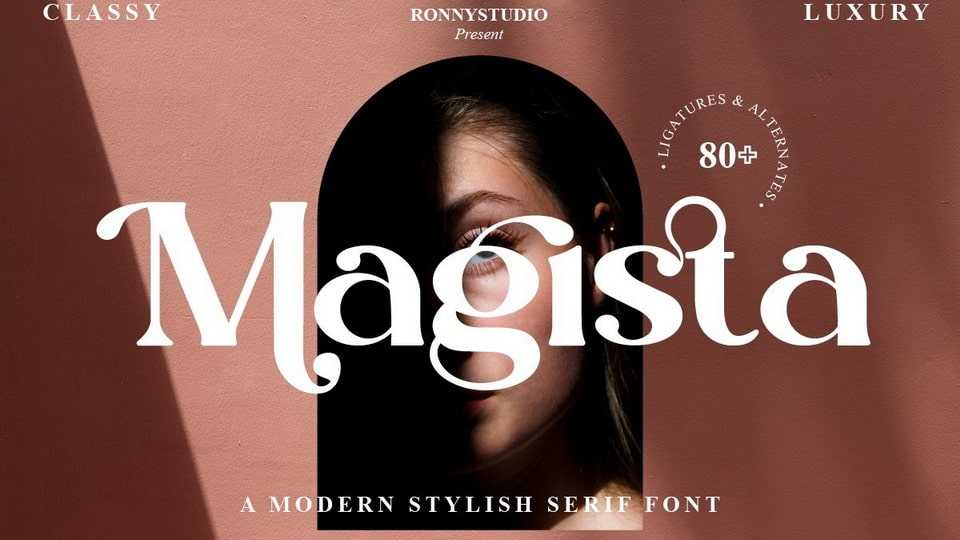
Download Magista font, an elegant and chic serif typeface. Magista font is impressive and features elegant and professionally shaped fonts, and as a result, it will easily match a variety of creations that require a different touch.